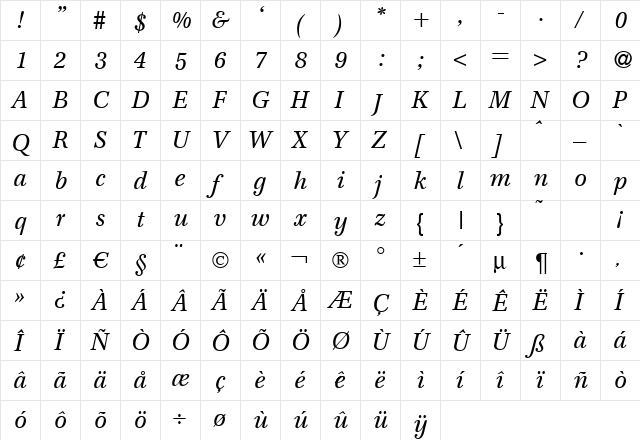
F820-Roman Italic
Design Context for F820-Roman Typeface
F820-Roman offers clean, dependable letterforms without strong stylistic allegiance, making it a practical choice for designers who need flexibility. The dynamic lean of this cut emphasises speed and emphasis in any layout.
Pro Tip: Try F820-Roman for annotation and caption copy alongside an upright companion — the contrast in angle creates a dynamic but ordered typographic system.